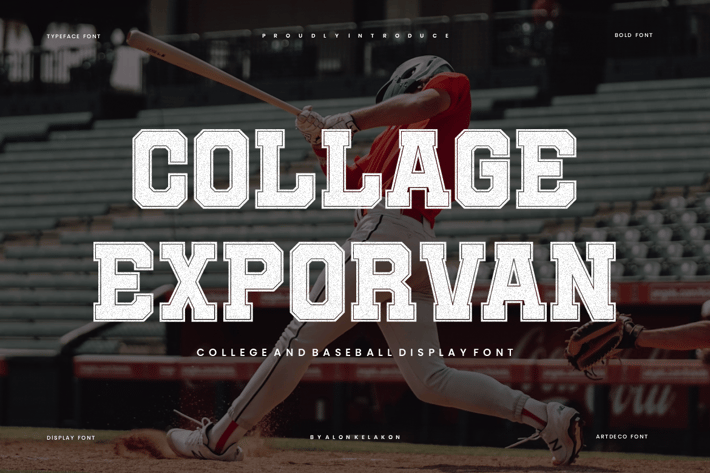
Collage Exporvan - Varsity & Baseball Font
Collage Exporvan Font is unique . Ready to use for your design like labeling, movie sceen, poster, movie title, gigs, album covers, logos, and much more.